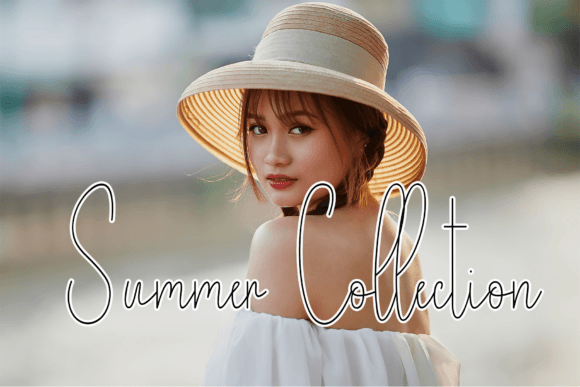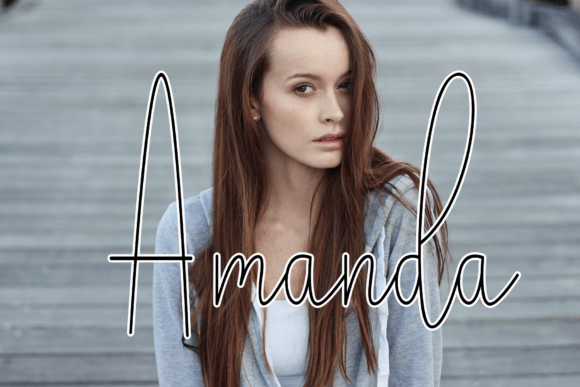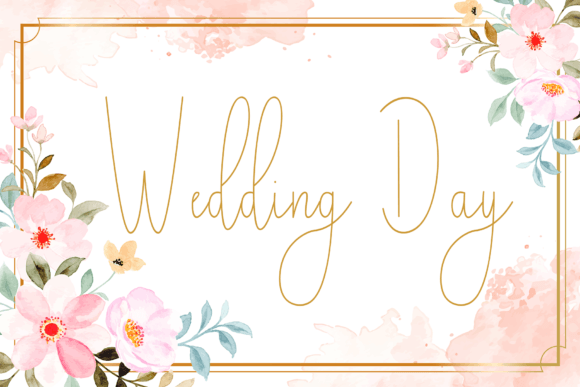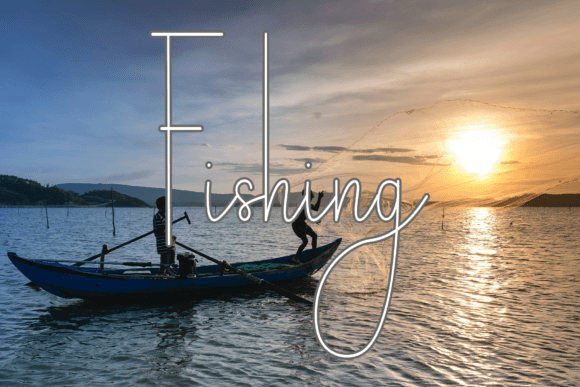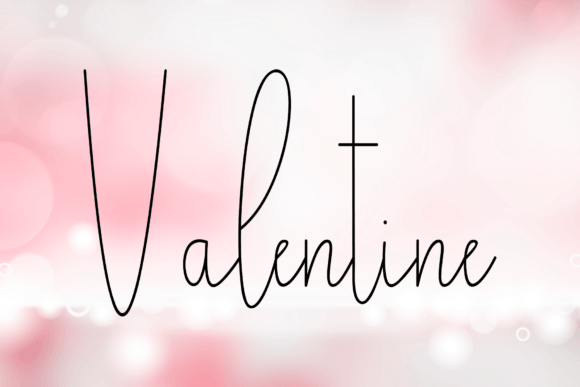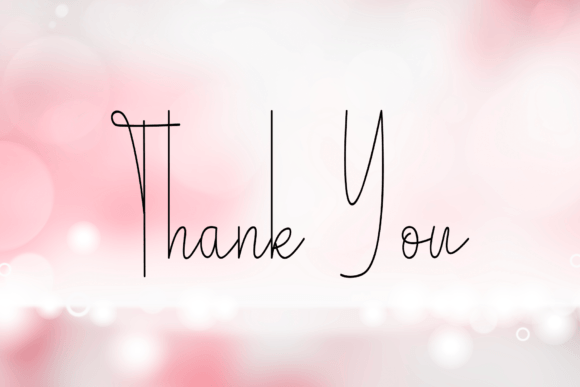
Introducing Farmhouse Font: A Delicate Handwritten Style for Unique Designs
Are you a designer, crafter, or DIY enthusiast looking for a font that adds a touch of rustic charm to your projects? Look no further than Farmhouse Font, a beautiful and delicate handwritten font carefully crafted for a cool and unique design. In this article, we’ll explore the features and benefits of Farmhouse Font, and how it can be used to elevate your designs, from writing letters and invitations to labeling food products and creating eye-catching titles.
Farmhouse Font is a carefully crafted handwritten font that exudes a sense of rustic elegance and charm. Its delicate lines and curves make it perfect for designs that require a personal touch, such as handwritten notes, invitations, and craft projects. The font’s unique style is reminiscent of traditional farmhouse signs, adding a touch of nostalgia and warmth to any design.
Features of Farmhouse Font
So, what makes Farmhouse Font so special? Here are some of its key features:
- Delicate lines and curves: Farmhouse Font features delicate lines and curves that give it a handcrafted feel.
- Unique character set: The font includes a range of characters, including letters, numbers, and punctuation marks, all designed to work together to create a cohesive look.
- Handwritten style: Farmhouse Font has a distinctly handwritten feel, making it perfect for designs that require a personal touch.
- Versatile: The font can be used for a wide range of projects, from writing letters and invitations to labeling food products and creating titles.
Uses for Farmhouse Font
Farmhouse Font is a versatile font that can be used for a wide range of projects, including:
- Writing letters and invitations: Add a personal touch to your letters and invitations with Farmhouse Font’s delicate handwritten style.
- Food products: Use Farmhouse Font to label your homemade food products, such as jams, honey, and baked goods.
- Titles and headings: Add a touch of rustic charm to your titles and headings with Farmhouse Font.
- Craft projects: Use Farmhouse Font to add a personal touch to your craft projects, such as scrapbooking, card making, and DIY signs.
Benefits of Using Farmhouse Font
So, why choose Farmhouse Font for your designs? Here are some benefits of using this beautiful font:
- Adds a personal touch: Farmhouse Font’s handwritten style adds a personal touch to your designs, making them stand out from the crowd.
- Rustic charm: The font’s rustic charm makes it perfect for designs that require a country or vintage feel.
- Easy to read: Despite its delicate lines and curves, Farmhouse Font is easy to read, making it perfect for designs that require a clear and legible font.
- Versatile: Farmhouse Font can be used for a wide range of projects, making it a great addition to any designer’s font collection.
Farmhouse Font is a beautiful and delicate handwritten font that adds a touch of rustic charm to any design. Its unique style and versatile nature make it perfect for a wide range of projects, from writing letters and invitations to labeling food products and creating titles. Whether you’re a designer, crafter, or DIY enthusiast, Farmhouse Font is a great addition to your font collection. So why not give it a try and see how it can elevate your designs?